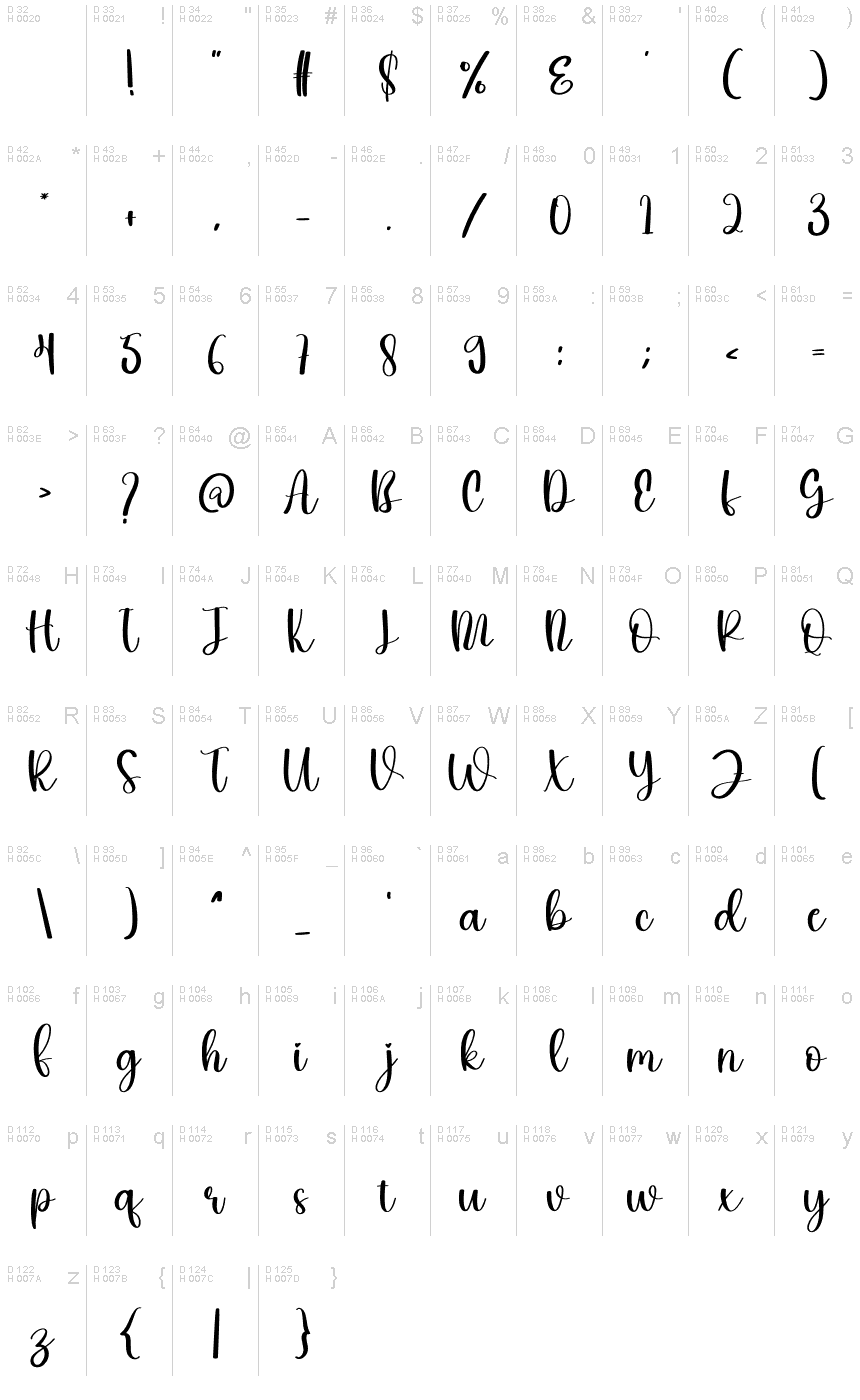
Honeydrink
Honeydrink is a stunning calligraphy font designed by scratchones that exudes elegance and sophistication. Its semi-light weight gives it a delicate touch perfect for projects that require a touch of class, such as wedding invitations, luxury brands, and high-end fashion magazines. This font's flowing curves and loops create a sense of movement, making it suitable for designs that require an organic feel. Whether you're creating logos or designing packaging, Honeydrink's timeless beauty will elevate your project to the next level. Bring your ideas to life with this exquisite semi-light calligraphy typeface!
the latest style letters are perfect for wall displays, wedding invitations, social media post logos, advertisements, product packaging, product designs, labels, photography, watermarks, invitations, stationery, and any project that requires taste handwriting.